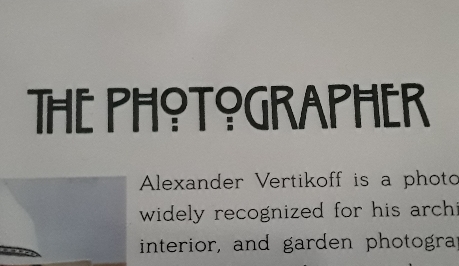
Help ID Art Nouveau Font
A friend asked me for help IDing this font. I’m coming across lots of similar Art Nouveau display fonts on the web, but none so far with these strange under-dotted O’s.
It’s ITC Willow.
It’s likely more of an Arts & Crafts genre typeface than Art Nouveau, but that’s probably beside the point.
No you are completely right with Arts and Crafts, and yes it’s ITC Willow.
It is based on lettering drawn by Scottish Architect and designer, Charles Rennie Macintosh for the Willow Tea Rooms in Glasgow. He was a bit of a genius. The Hill House and Glasgow School of Art are amazing. The library in the latter is/was astounding. I remember feeling physically sick a few years ago watching the footage of a fire ripping through it. It will get rebuilt, but will never be quite the same. Let’s just hope they put the same attention to detail into its rebuilding as Macintosh did originally.
Does anyone recognize the font used for the text?
MeyerTwo Regular